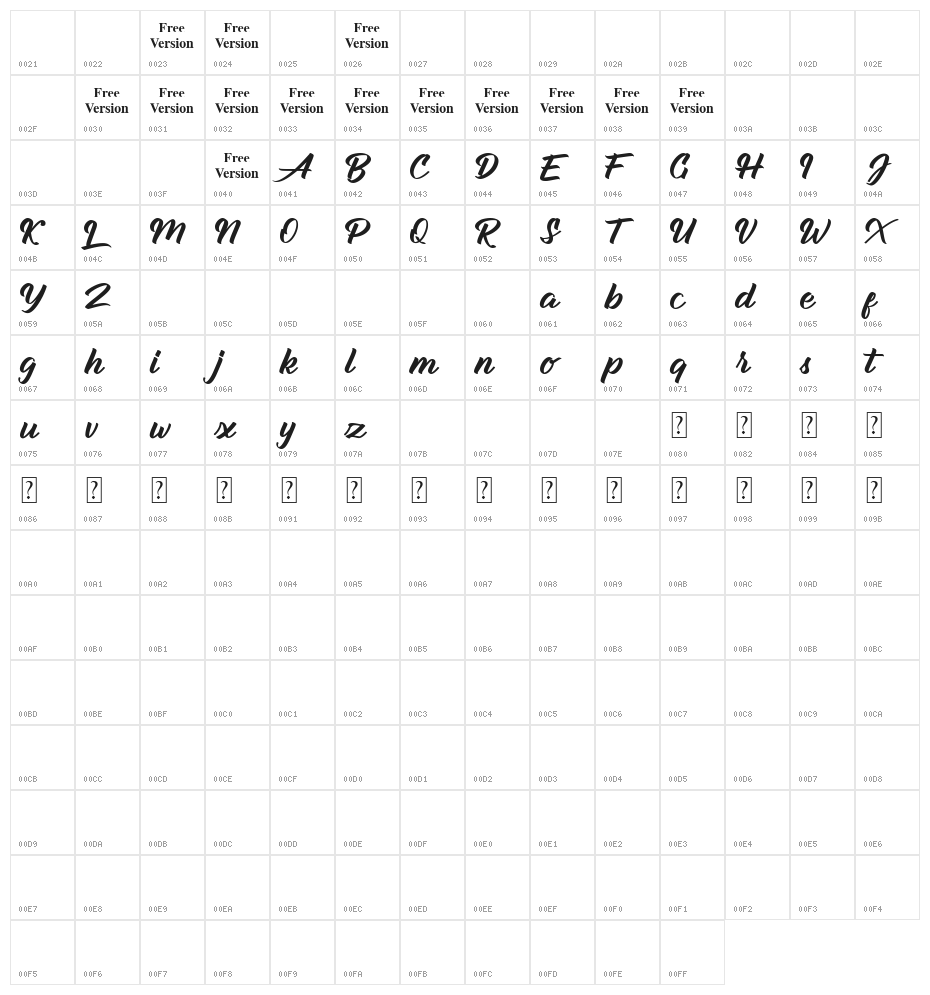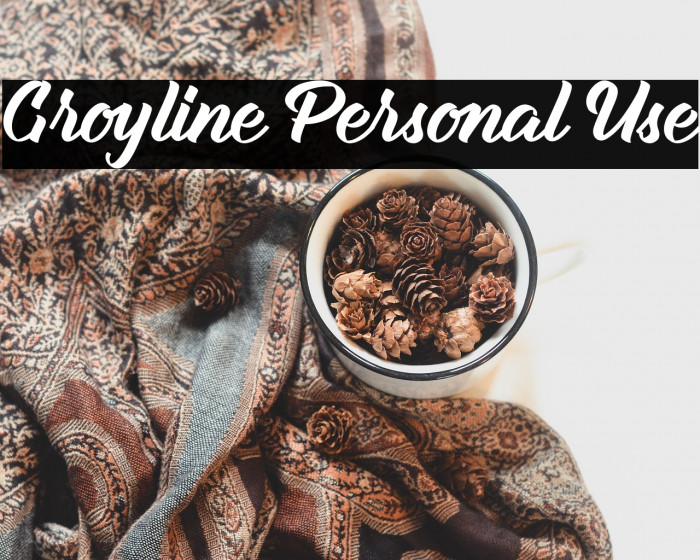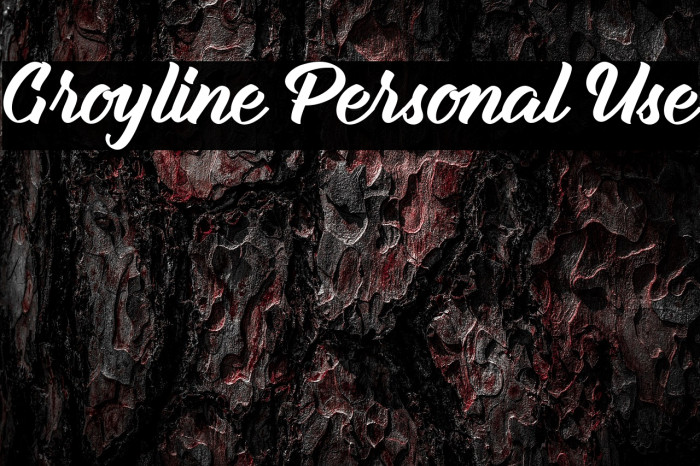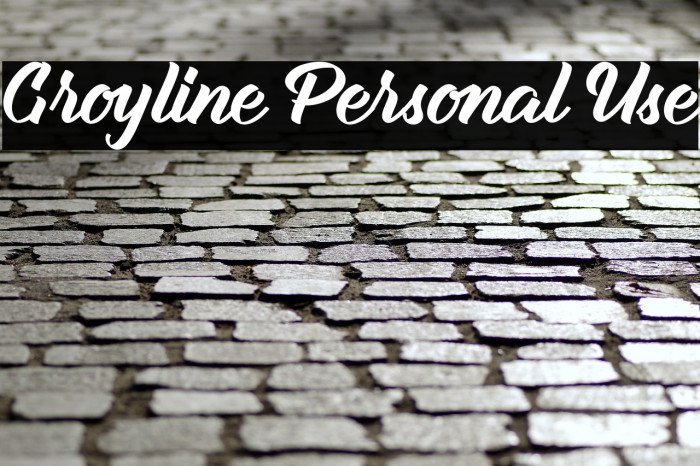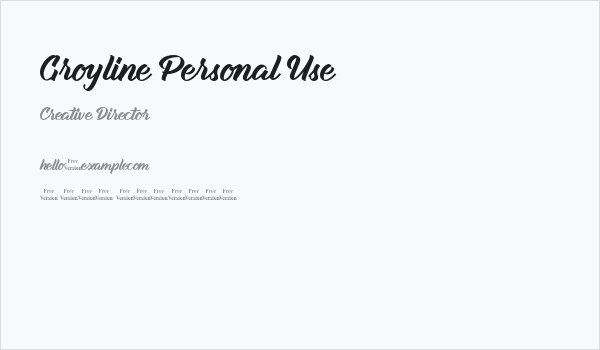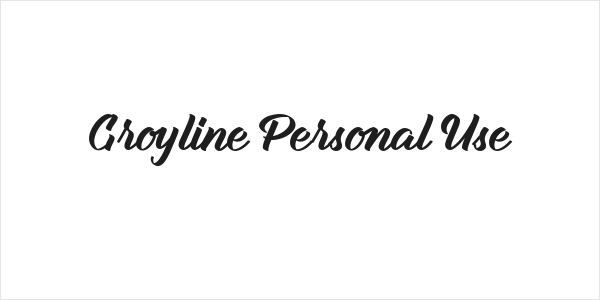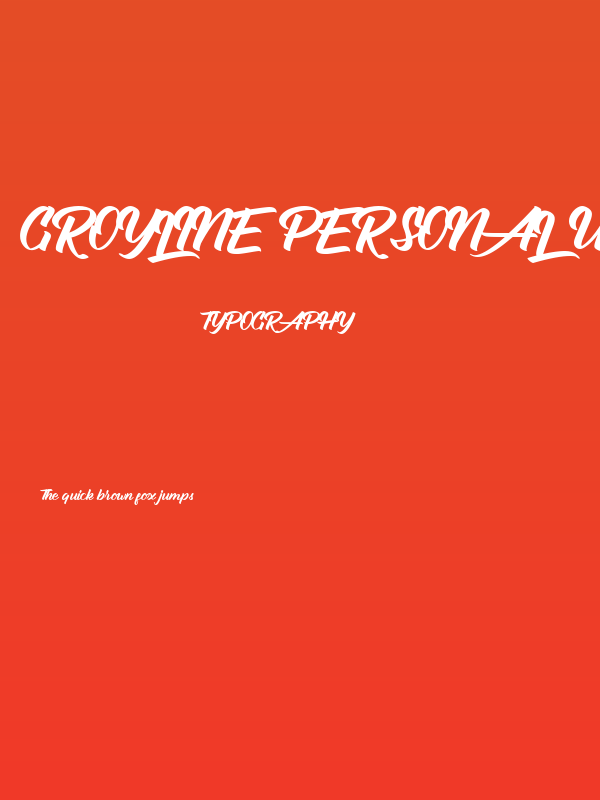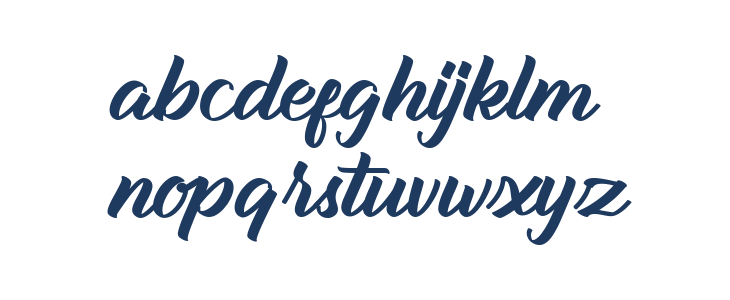
Groyline Personal Use Font
Groyline Personal Use Description
This font features a bold and flowing script style, characterized by its elegant and dynamic letterforms. The uppercase letters are particularly striking, with sweeping curves and a sense of movement that adds a touch of sophistication. The lowercase letters maintain this fluidity, offering a harmonious balance between readability and artistic flair. The font's thick strokes and high contrast make it stand out, while the slightly condensed width gives it a compact and cohesive appearance. This font is ideal for projects that require a personal and stylish touch, such as invitations, branding, and headlines.
| Proposed Projects | Ideal for invitations, branding, and stylish headlines. |